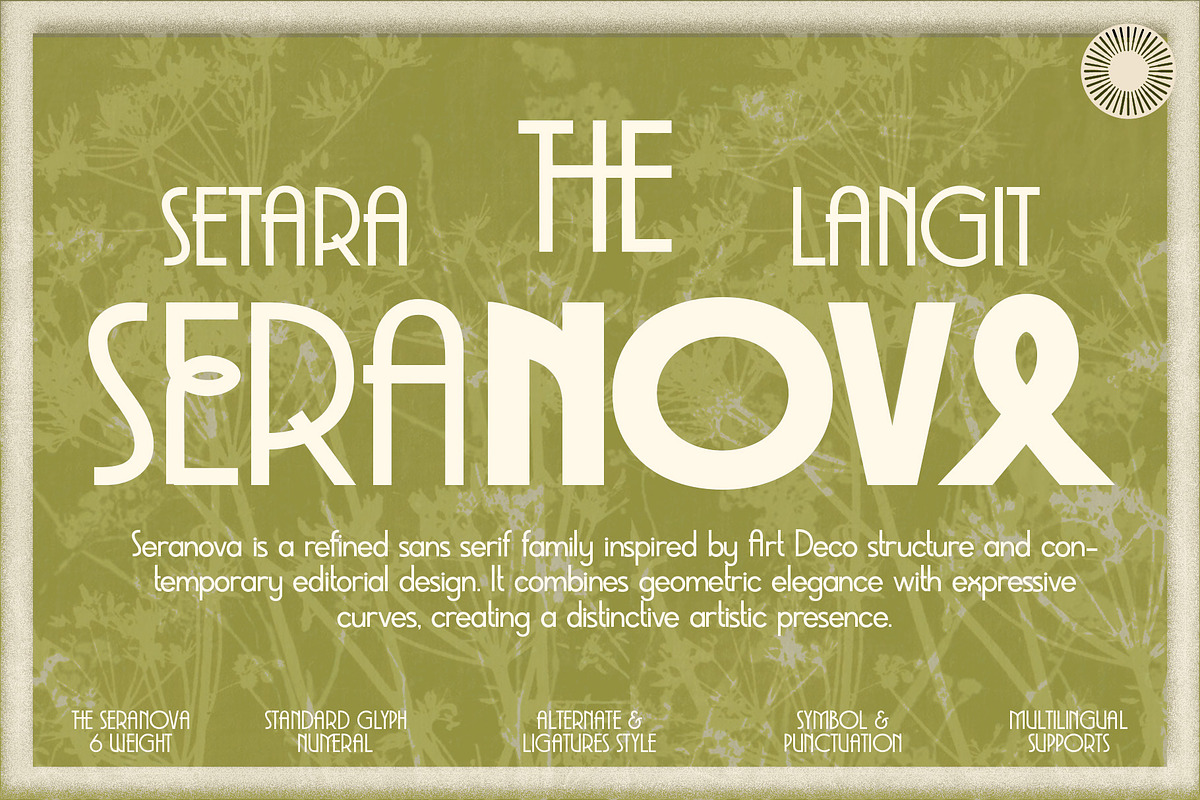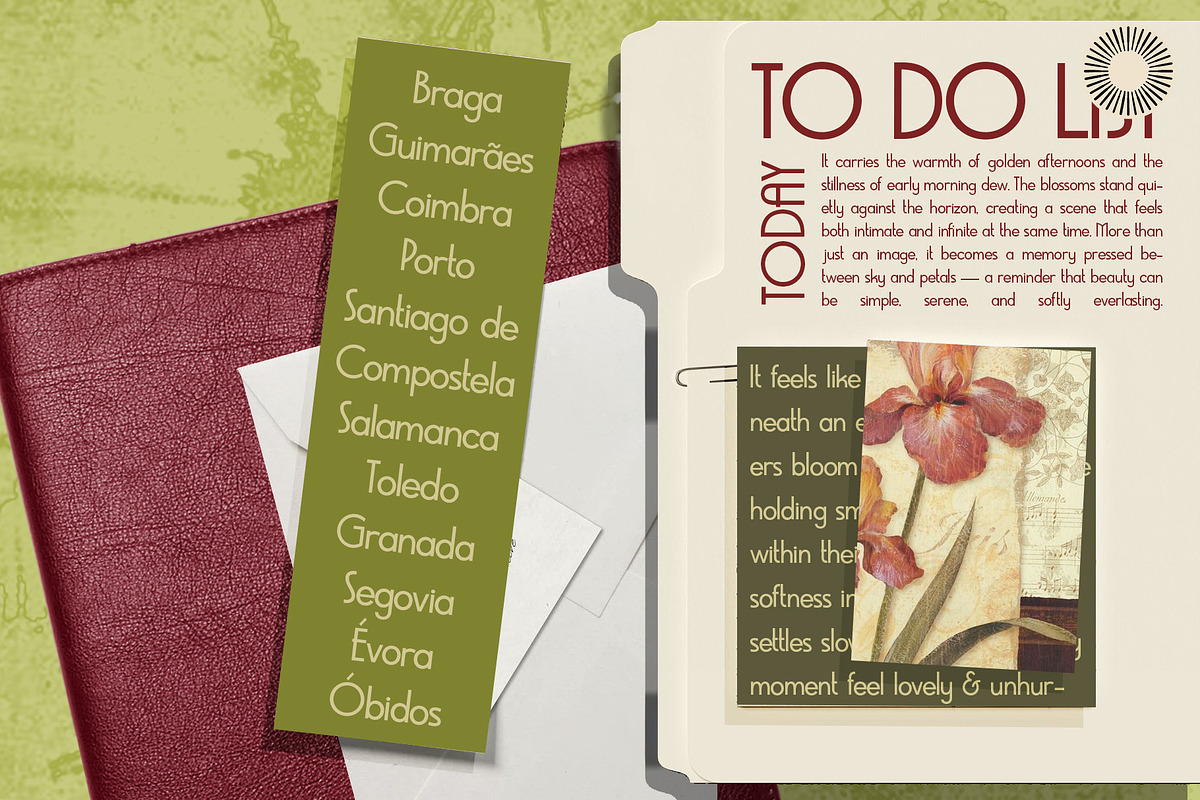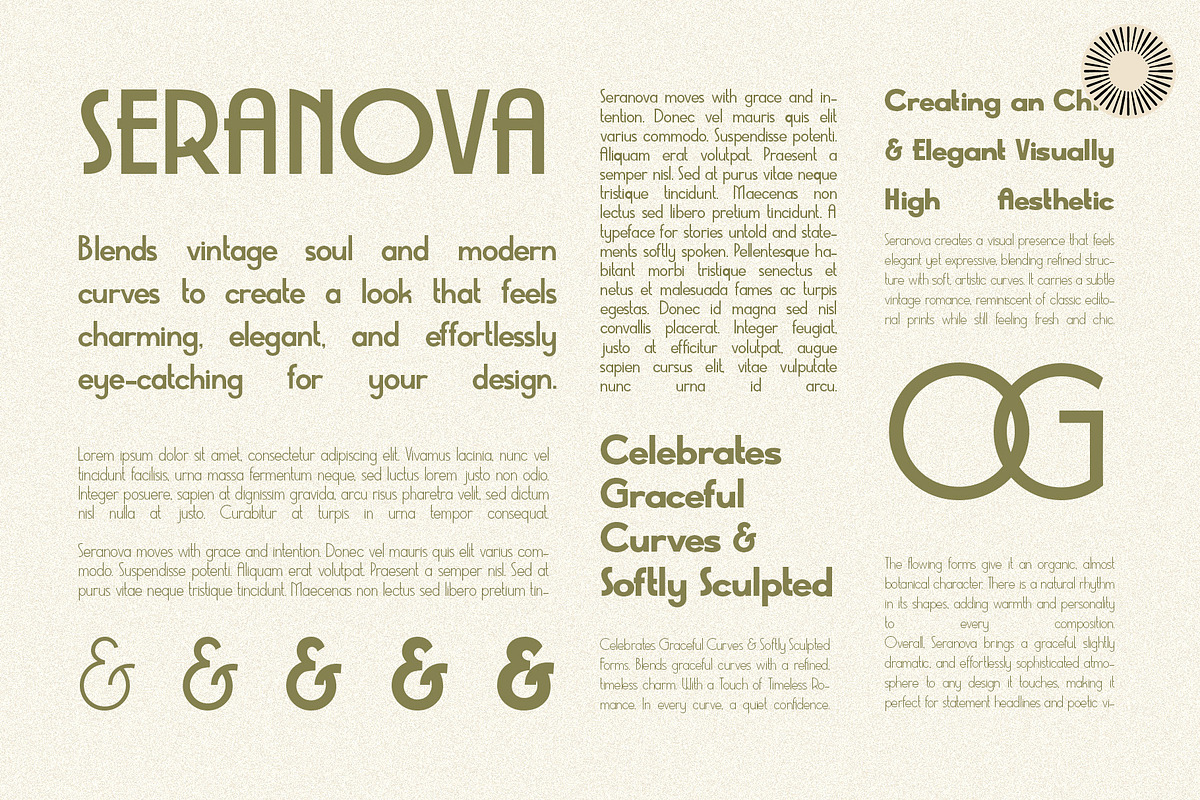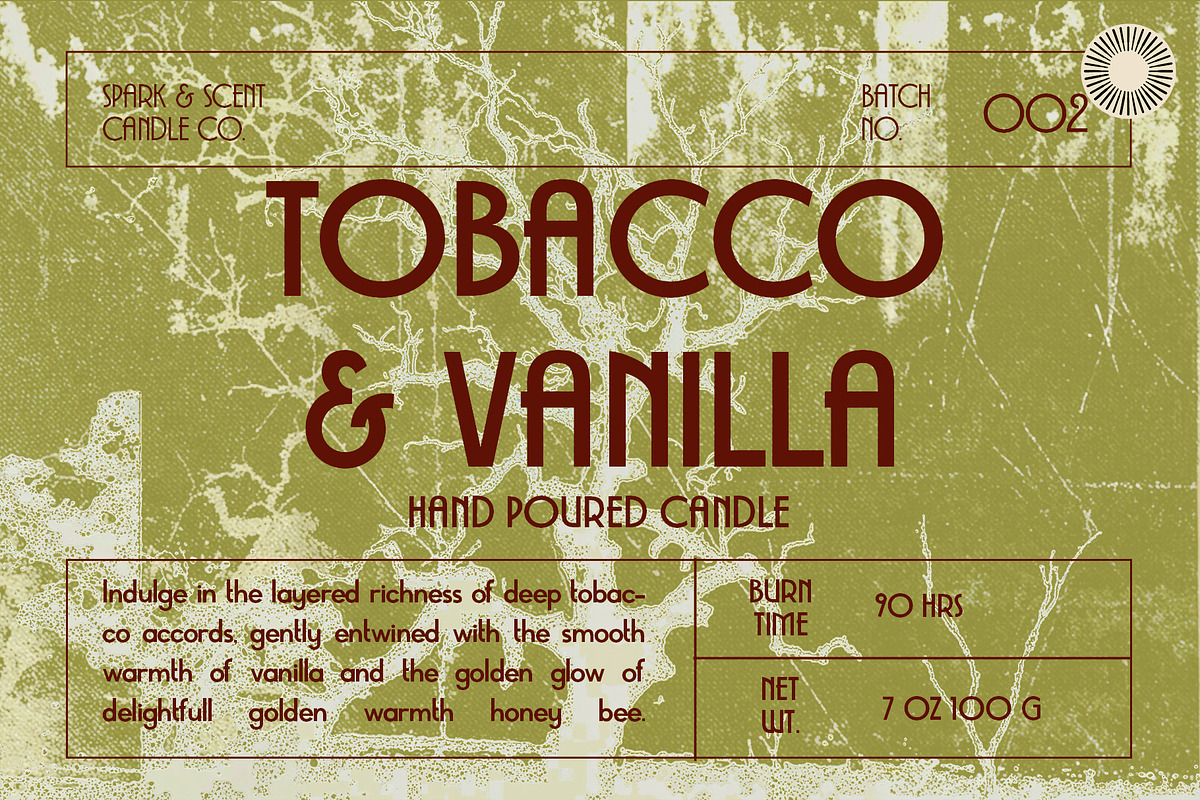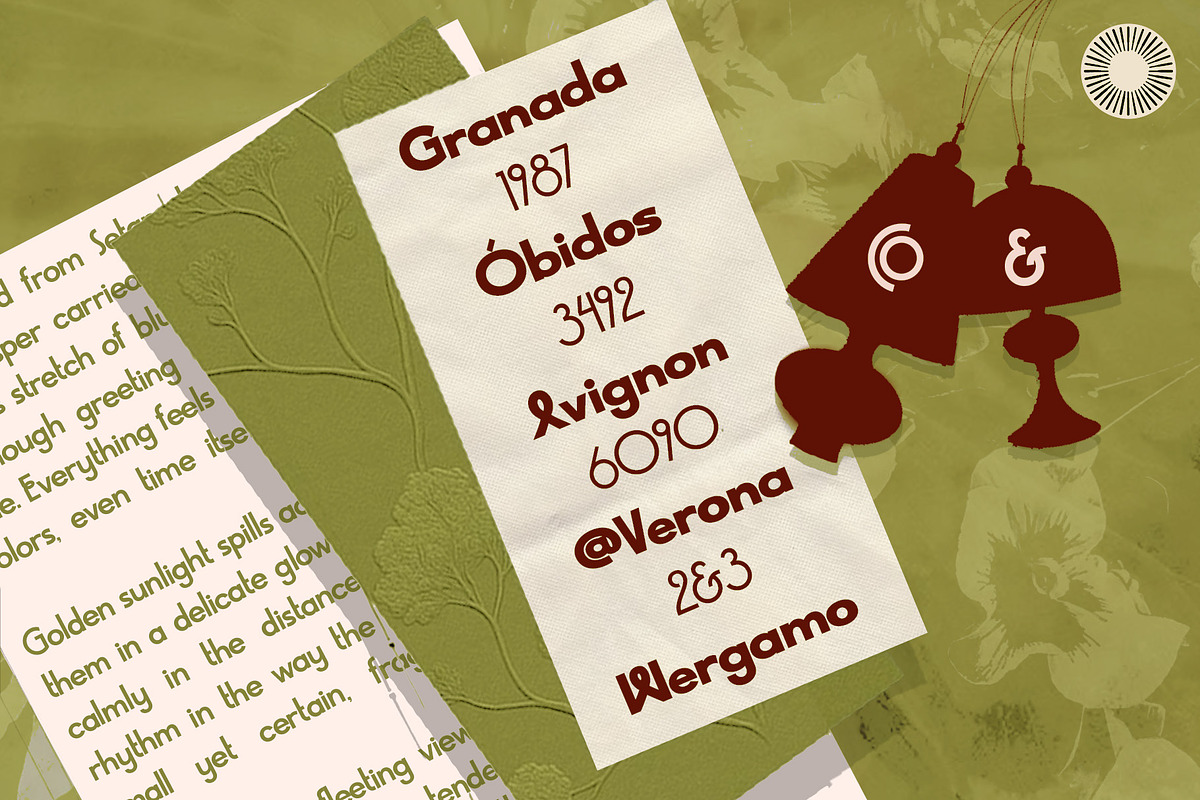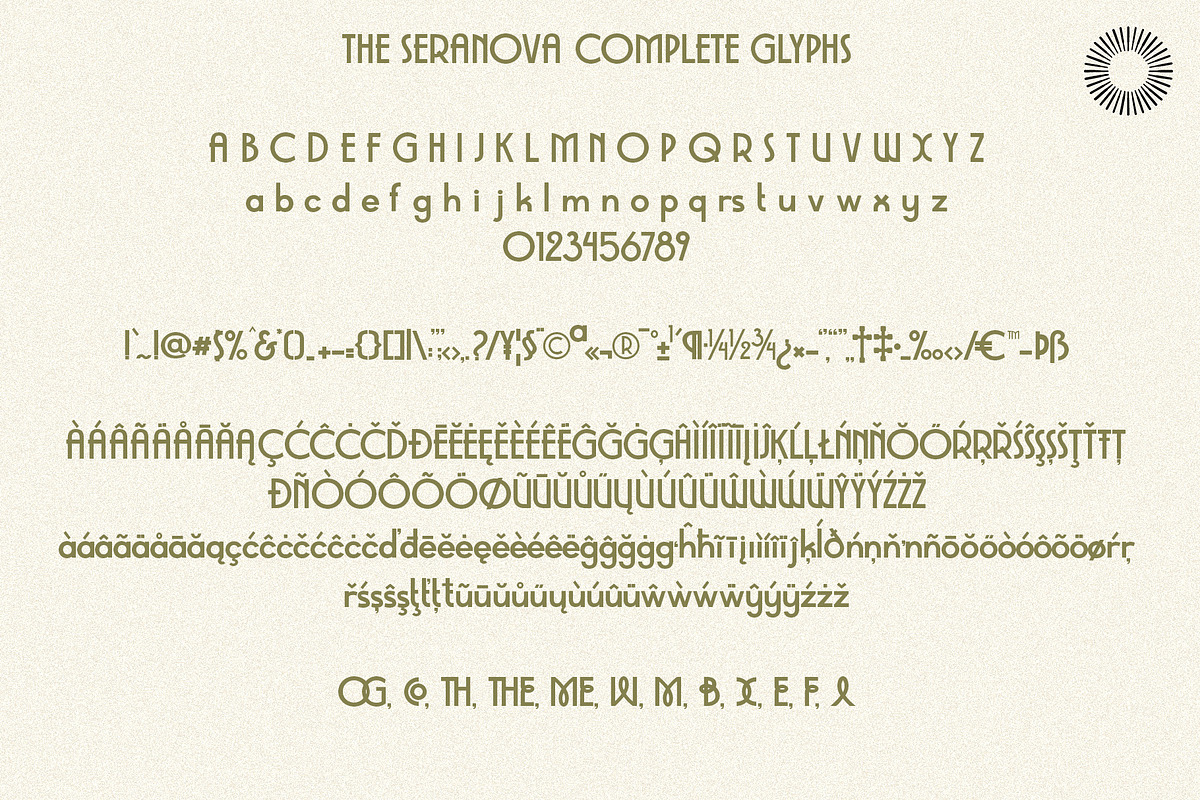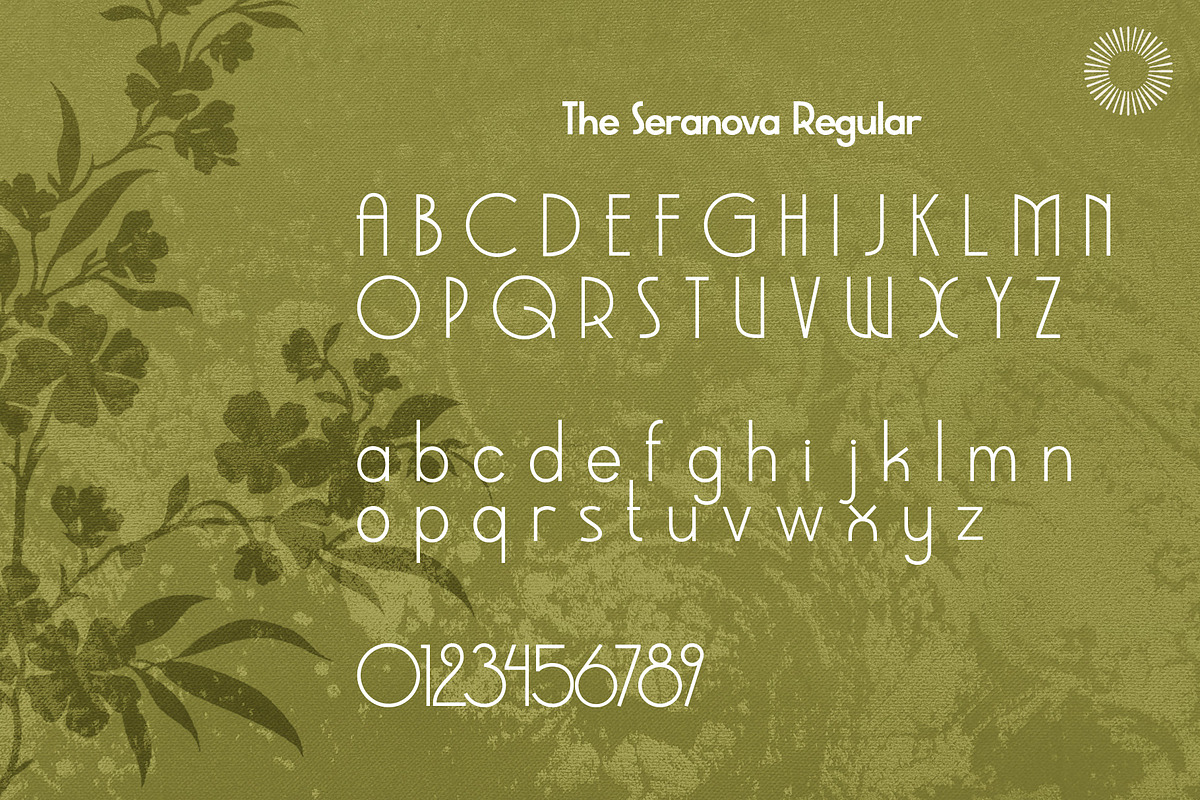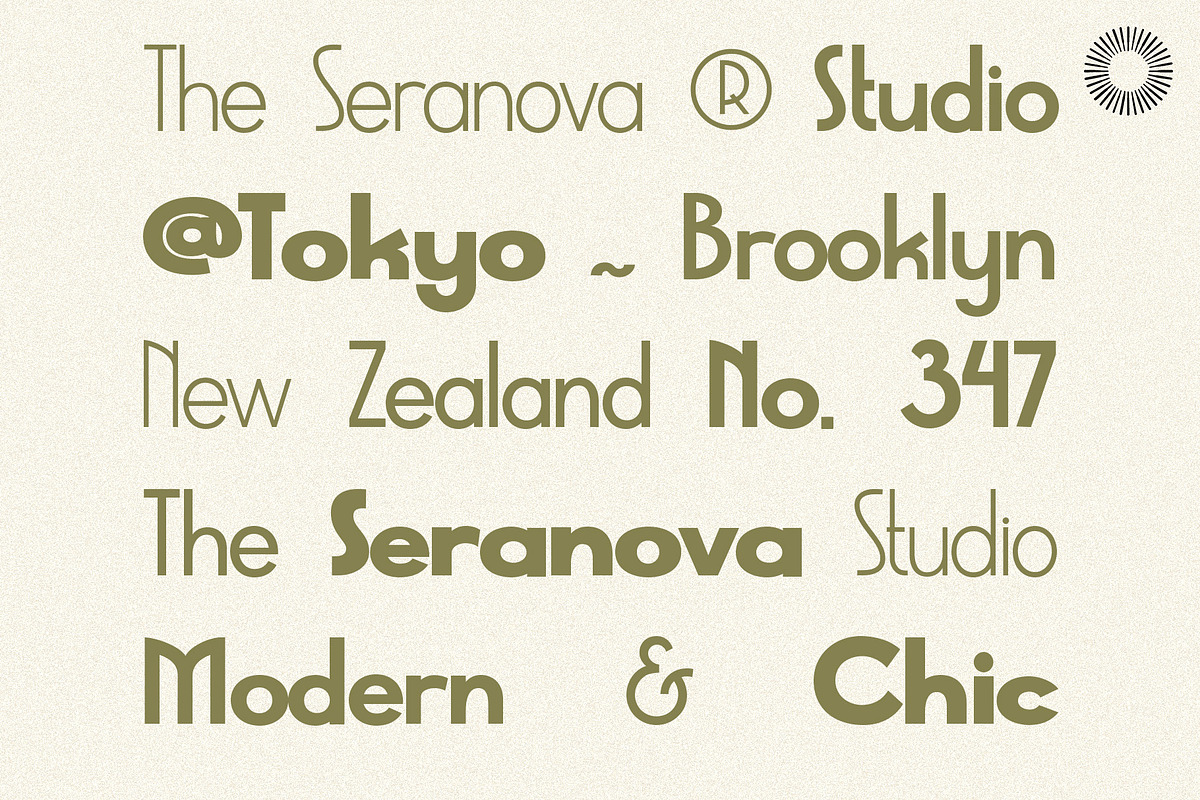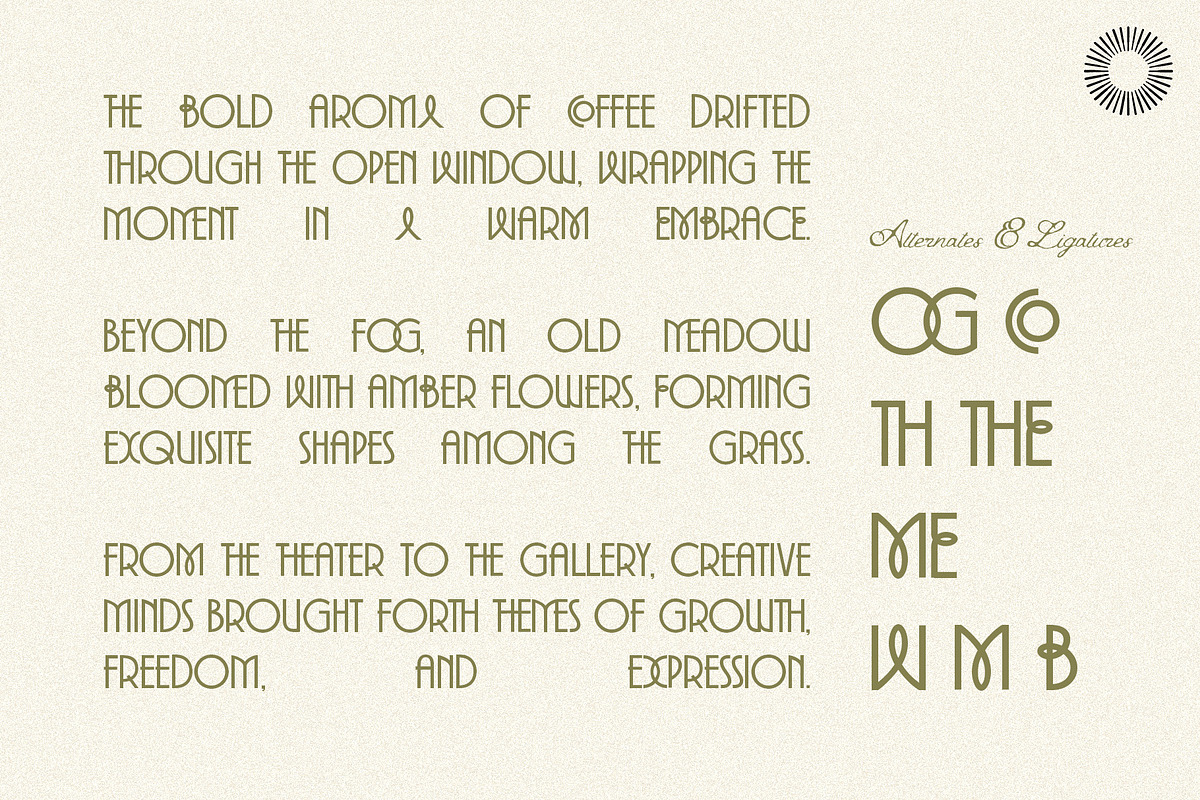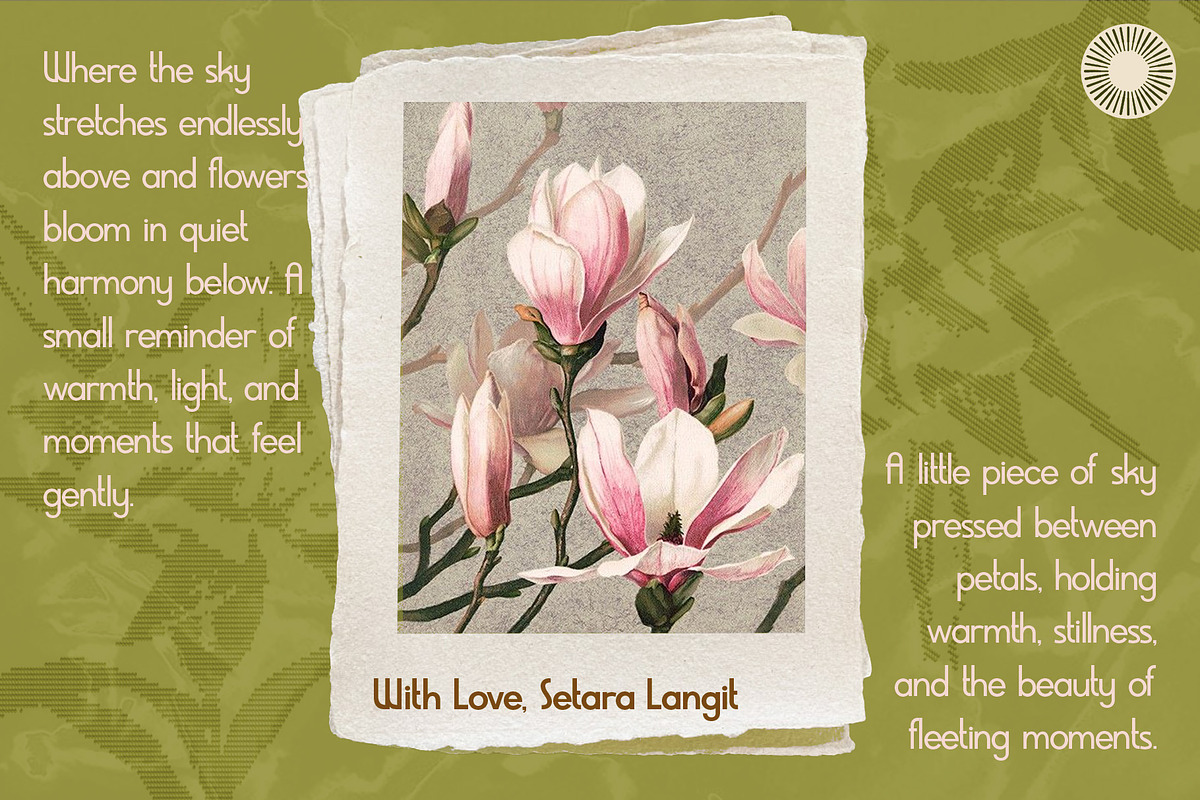
The Seranova - Contemporary DecoSans
Seranova is a refined sans serif family inspired by Art Deco structure and contemporary editorial design. It combines geometric elegance with expressive curves, creating a distinctive artistic presence. Designed for designers who want sophistication with personality. Seranova feels at home in magazine layouts, gallery posters, curated branding, and modern visual identities.
- Complete sans serif family (6 weights)
- Multilingual support: Latin pro
- Art Deco inspired construction
- Editorial-focused proportions
- Subtle artistic flow
- Clean geometry with expressive details
- Strong headline presence
- Professional kerning & balanced spacing
Best For
- Editorial layouts
- Magazine covers
- Art gallery posters
- Creative branding
- Interior & architecture branding
- Fashion editorials
- Lookbooks
- Visual identity systems
- Social media campaigns
Seranova brings a curated, artistic mood while remaining versatile enough for professional branding and publication work.